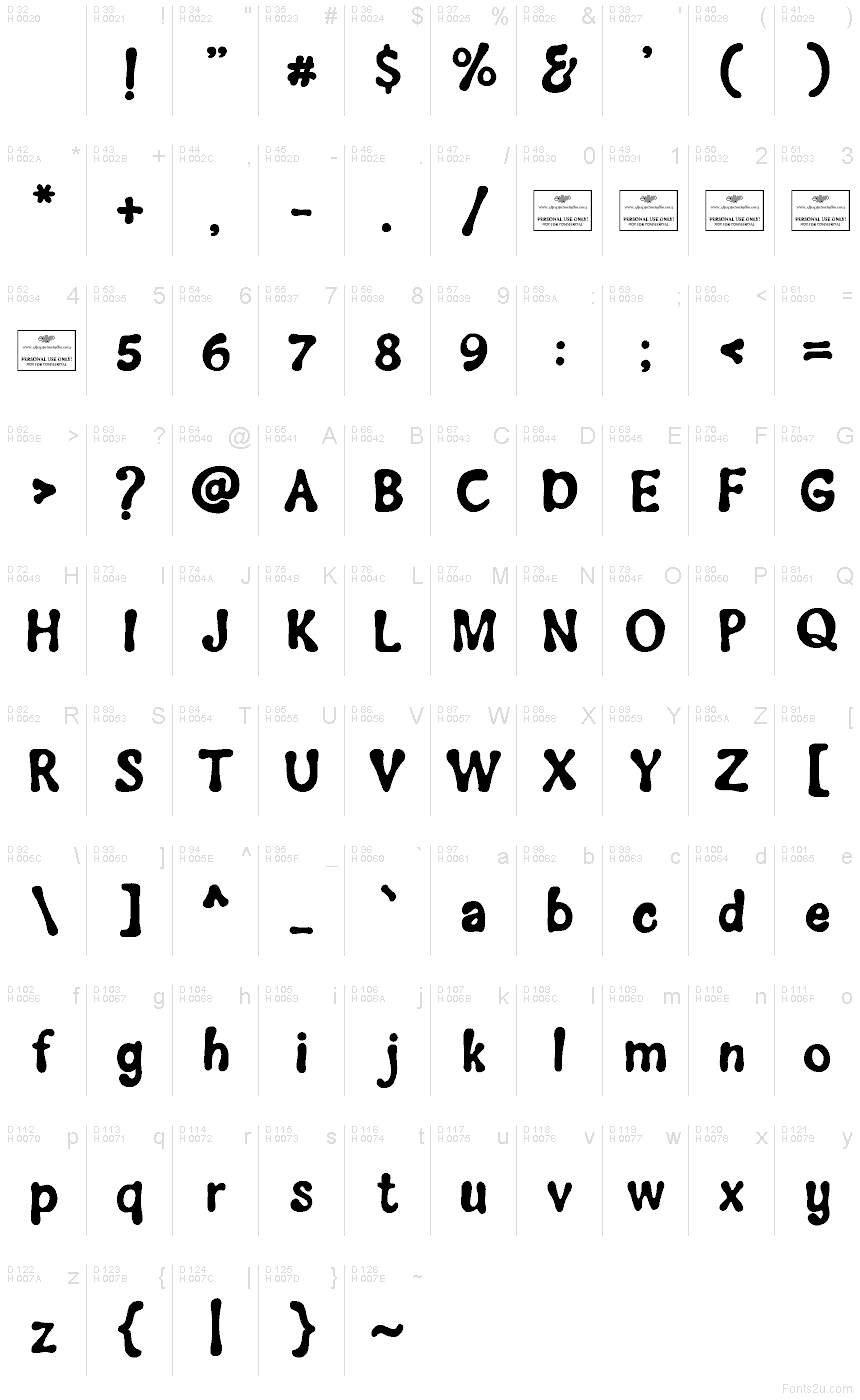
Groovetastic
Groovetastic font by Alpaprana Studio turns back the clock and lets designers experience the best of both worlds. The free display font is created with simple aesthetics that allow us to notice each groove. Although not exaggerated or overly styled, Groovetastic presents a retro influence that’s clear in every character as it displays an energetic vibe.
An effective design doesn’t always mean chaos and color, which is why this smooth font can be used for a professional business card design or sticker. So let its vibrant character shine with different software tools, creating fresh posters, covers, apparel items like t-shirts and caps, labels for coffee brands and juice bottles.